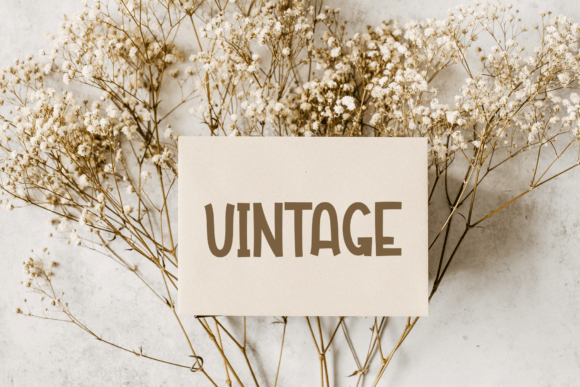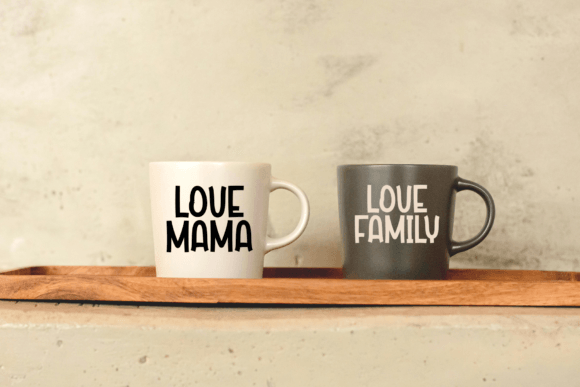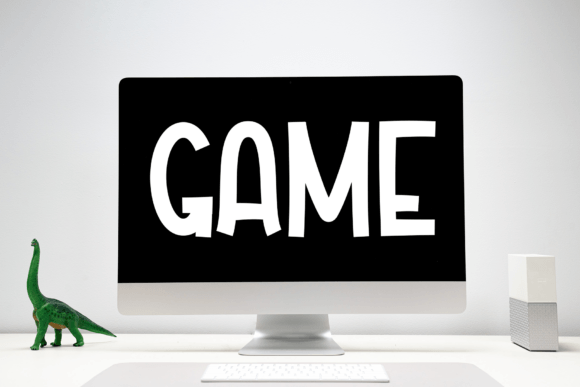
Introduction to Digital Dialog Font
Digital Dialog is a handwritten font that looks like it was drawn with a marker.
Having a relaxed and sporty feel, it is very suitable for branding, logos, wedding supplies, greeting cards, fashion, lookbooks, marketing promotions, and whenever you want your design to look luxurious and elegant but still casual .